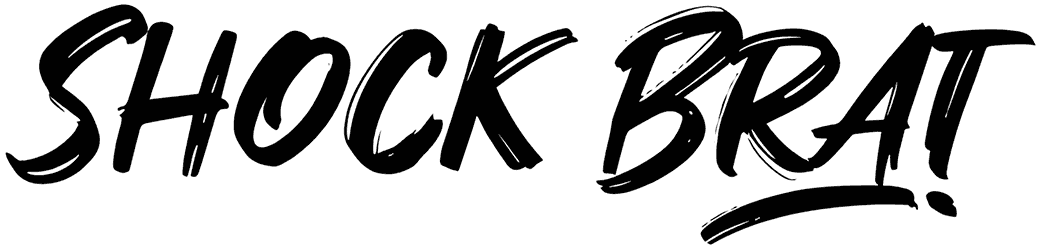
Harashi Font
Take a look at this brush font with an energetic and modern vibe named Harashi. Although this hand-drawn font does not have numerals, it has a limited number of lowercase letters and punctuation. Instead, two sets of uppercase letters that are dissimilar in detail can create various urban styles for your following design. Put Harashi on texts such as logos, flyers, covers, and more. Go for it!
Designed by: Maulana Creative